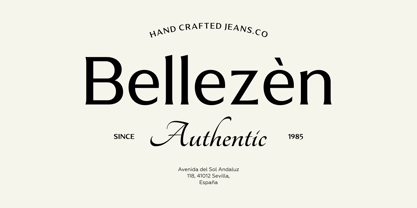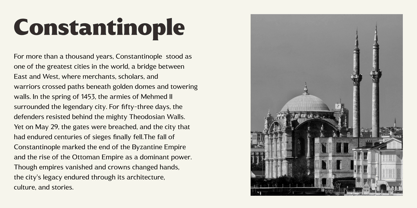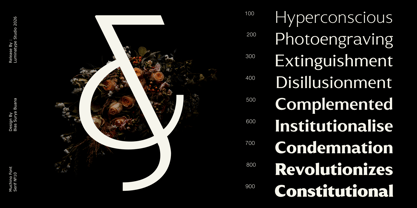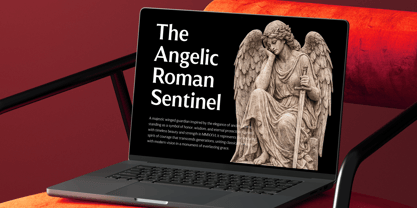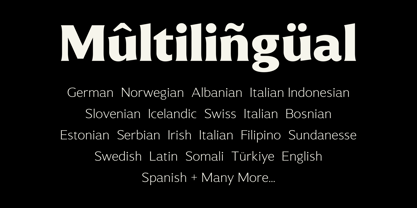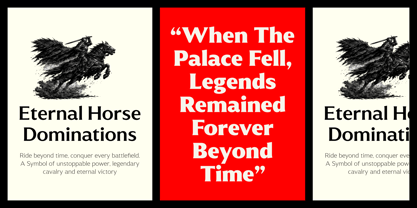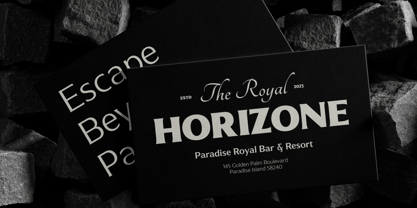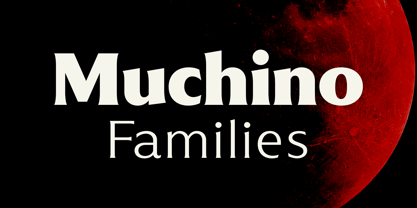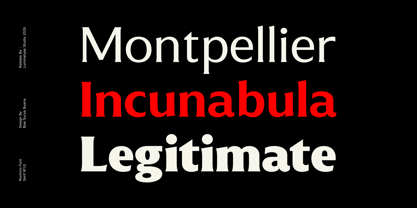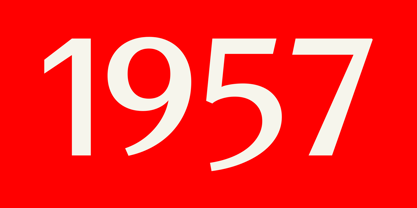
Muchino
by Luminatype Studio
The Muchino Font Family was designed by Bias Surya Buana and published by Luminatype Studio. Muchino contains 9 styles and family package options. More about this family
Muchino is a refined serif typeface designed by Luminatype Studio, created to embody timeless elegance, confidence, and modern sophistication. Inspired by the beauty of classical typography, Muchino combines graceful curves, sharp details, and balanced proportions to deliver a distinctive and memorable visual presence.
Crafted for designers who seek both luxury and versatility, Muchino brings a sense of prestige and character to every composition. Its elegant structure makes it ideal for creating impactful headlines while maintaining a refined and professional appearance.
Muchino is perfect for editorial layouts, luxury branding, logo design, fashion campaigns, product packaging, magazine covers, music artwork, invitations, and premium visual identities. Whether used in bold display settings or sophisticated branding projects, Muchino adds a timeless charm that elevates any design.
Designers: Bias Surya Buana
Foundry: Luminatype Studio